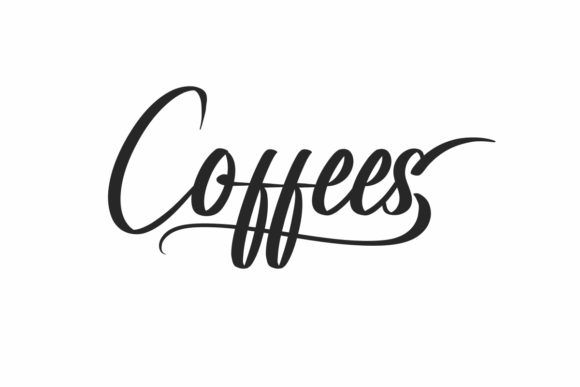
Journey into the world of Coffees, a mesmerizing script font that dances gracefully like a ballerina across your designs. Its delicate strokes, reminiscent of a lover's whisper, will cast a spell on your projects, leaving them utterly captivating and irresistible.
With Coffees, you have the magical power to transform ordinary words into extraordinary works of art. Its gentle curves and flowing lines will lend an aura of elegance and sophistication to your creations, making them stand out from the mundane. Let Coffees be your muse, guiding you towards artistic masterpieces that leave an indelible mark on the hearts of your audience.
Coffees is more than just a font; it's an experience. Each letter, crafted with meticulous care, is a testament to the beauty that lies within the written word. Its versatility knows no bounds, adapting seamlessly to a multitude of design endeavors. Whether you're crafting logos that exude timeless charm, designing invitations that promise a touch of romance, or creating social media posts that captivate the senses, Coffees will be your trusted companion, enhancing your vision every step of the way.
Unleash the boundless creativity within you and let Coffees ignite your imagination. Embrace the beauty of the written word and watch as Coffees transforms your designs into breathtaking works of art. Dare to be bold, dare to be different, and let Coffees guide you towards typographic excellence.